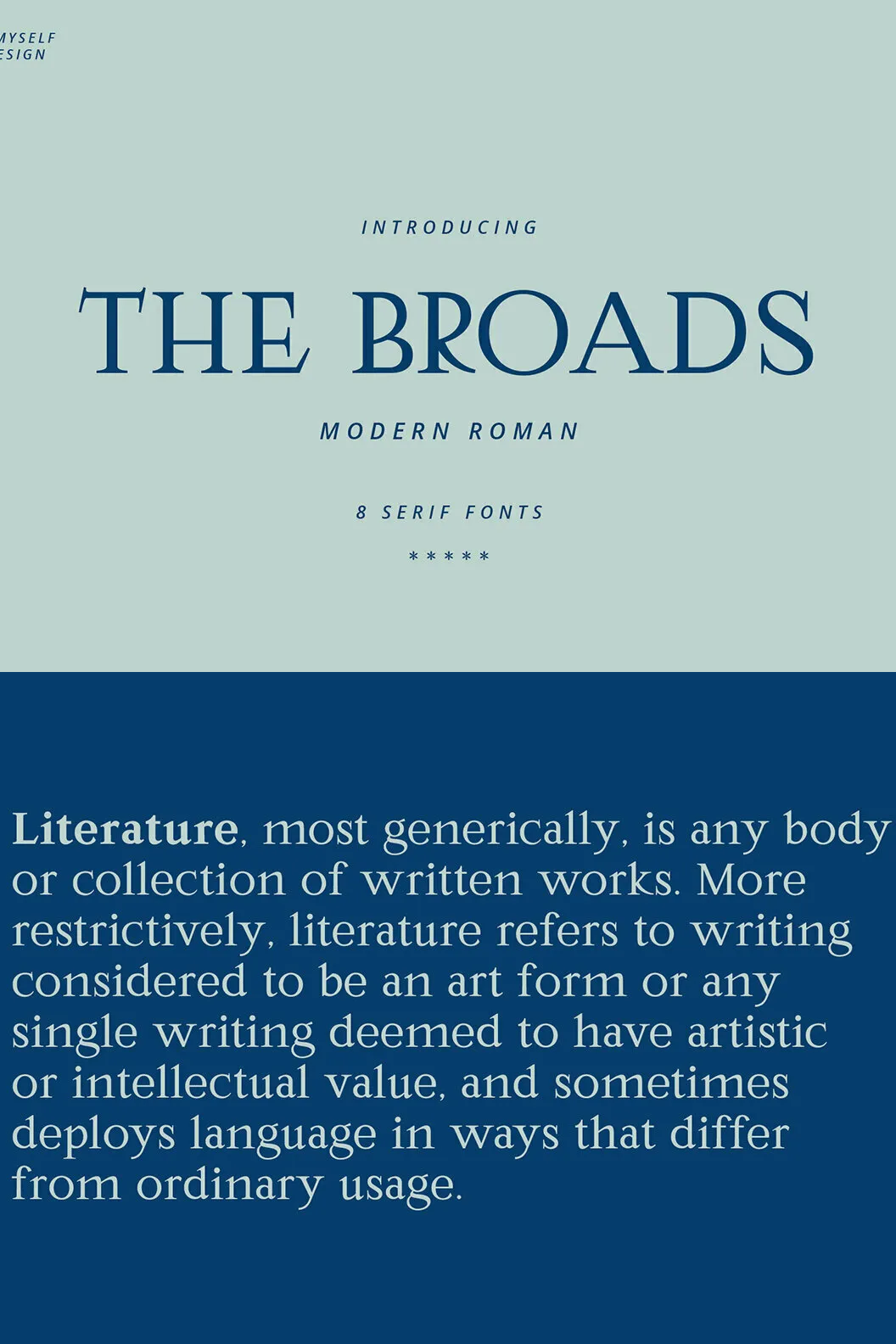
The Broads FonttypesiteJanuary 31, 2024Sans Serif Discover the timeless allure of The Broads The Boards, a modern roman seriffont that effortlessly blends classic elegance with a touch of vintagecharm,…SKU T12359 Download Here